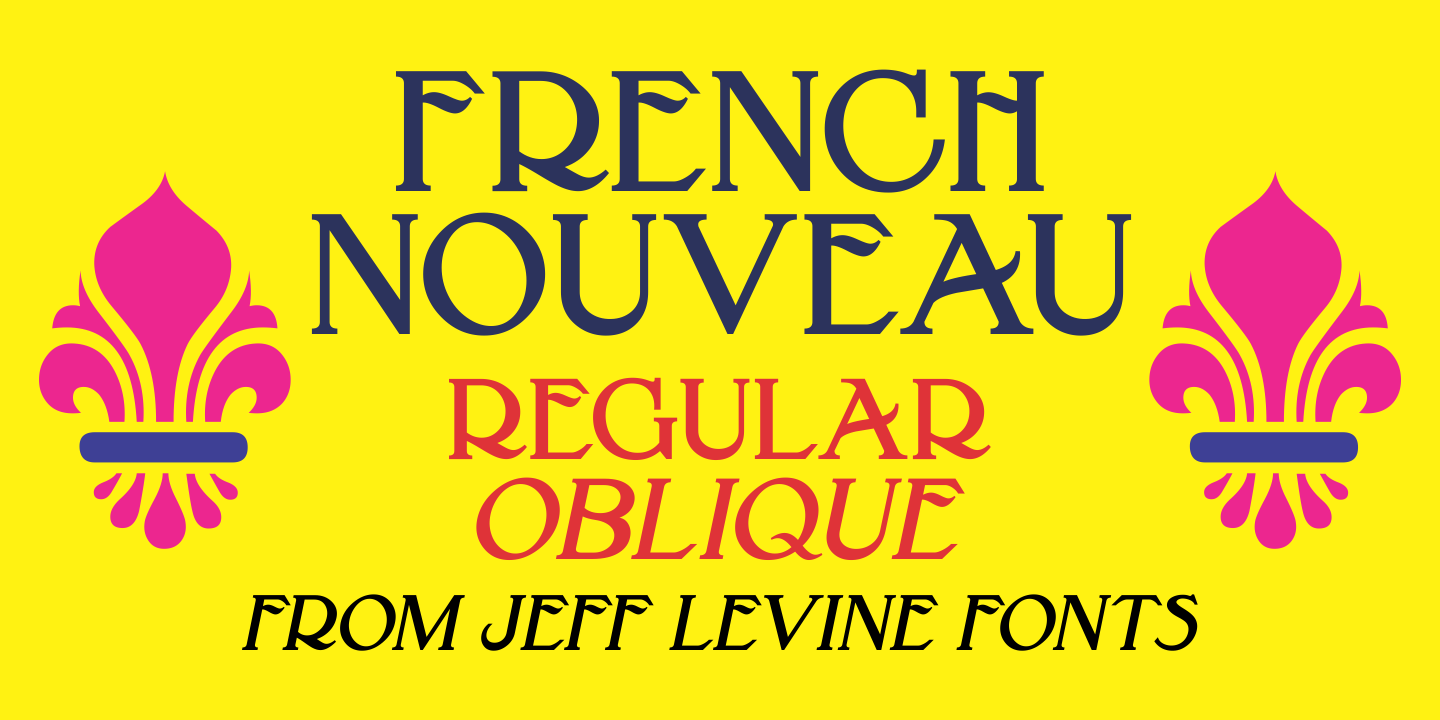
French Nouveau JNL Font Free Download is an elegant and artistic typeface inspired by the Art Nouveau movement, perfect for adding a vintage yet stylish flair to your designs. Please note: you must purchase a license for commercial use — this font is available as a free download strictly for personal and testing purposes.
Ideal for branding, invitations, posters, packaging, and editorial work, French Nouveau JNL Font Free Download infuses your projects with sophistication and a touch of historical charm.
What makes this font exciting is its flowing lines, intricate details, and graceful curves that capture the essence of the Art Nouveau style, creating a visually stunning and timeless look.
The French Nouveau JNL font family includes Regular and Italic styles, giving designers versatile options for creative expression.
If you want to add an elegant, vintage vibe to your projects, French Nouveau JNL Font Free Download is the perfect choice. Download it today, explore its artistic beauty, and elevate your designs with classic charm.